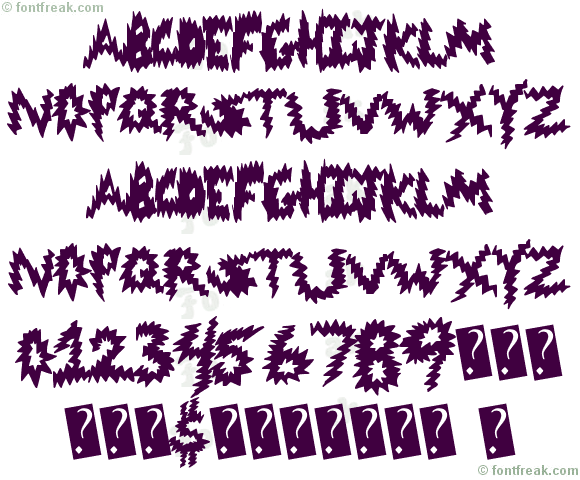
CodeDanger
CodeDanger by Xerographer Fonts is a striking display typeface that captures attention with its unique, edgy aesthetic. This font features a bold, jagged appearance that evokes a sense of urgency and excitement, making it perfect for designs that aim to stand out. The irregular stroke weights and sharp contrasts create a dynamic visual rhythm, giving it a rebellious character that can enhance various creative projects. The spacing is carefully crafted to maintain legibility while preserving the font’s distinctive personality.
This font is ideal for a range of applications, particularly in the realms of graphic design and marketing. CodeDanger shines in contexts such as music festival posters, where its energetic style can effectively convey a sense of fun and vibrancy. It also works well for urban apparel branding, providing an edgy touch to logos and promotional materials. Additionally, the font can be utilized in video game graphics, adding an element of excitement and intensity. Small business owners looking to create memorable signage or packaging will find CodeDanger equally appealing for its boldness and originality.
What truly sets CodeDanger apart is its ability to infuse any design with an unmistakable sense of character and attitude. The font’s unique visual language makes it not just a typeface but a statement, inviting viewers to engage with the content in a new and exciting way. For those seeking to make a bold impression, the CodeDanger font free download is an essential resource.